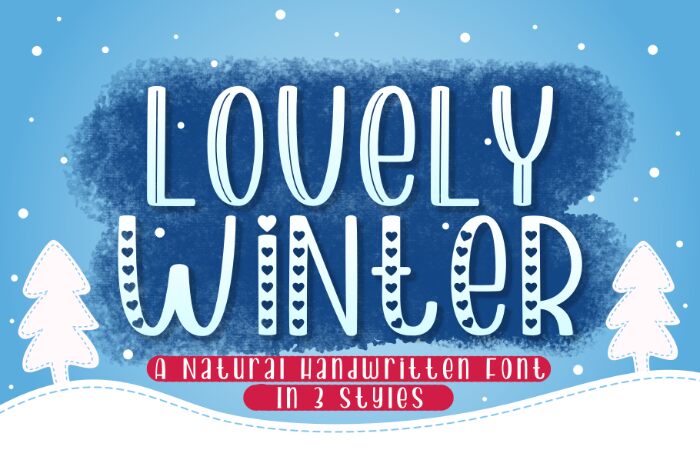
Lovely Winter Line font by Madatype Studio is a free holiday valentine decorative display typeface with a cozy, hand-drawn charm. Tall, narrow letters with soft curves and subtle inner lines feel like they’ve been drawn in frosting or sketched on a foggy window, giving your text a sweet, homespun warmth. The Lovely Winter family look keeps things legible while still feeling playful and romantic.
Using Lovely Winter Line in bold sizes instantly adds personality to Valentine cards, winter-themed party invites, gift tags, social graphics, mug designs, and cute packaging. This free font shines when used for short, punchy phrases and pairing it with a simple sans serif for body text keeps your layouts clean while letting its whimsical, holiday romance take center stage.